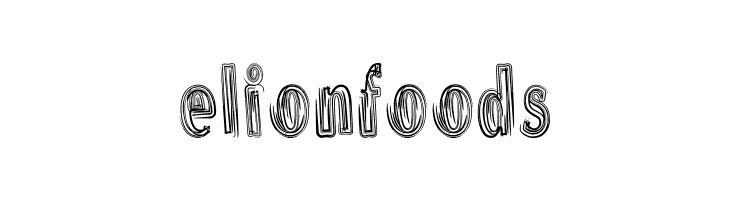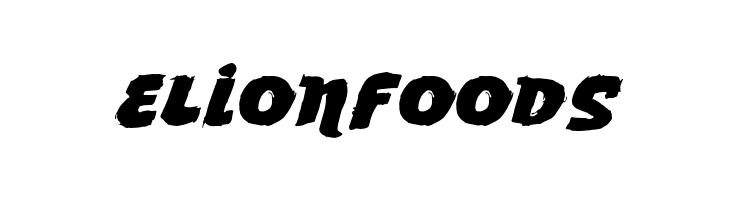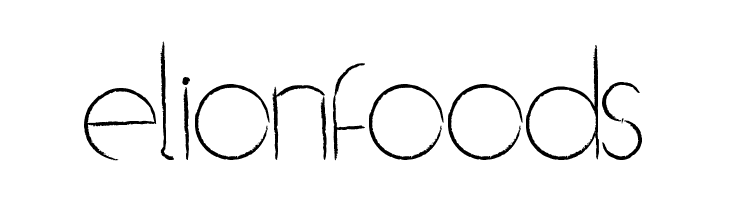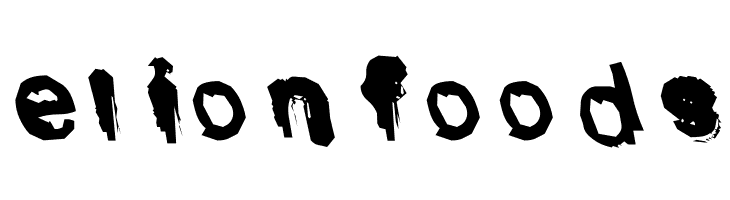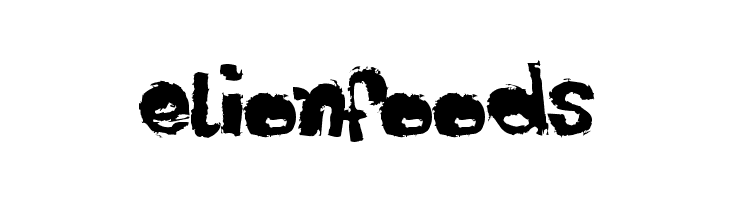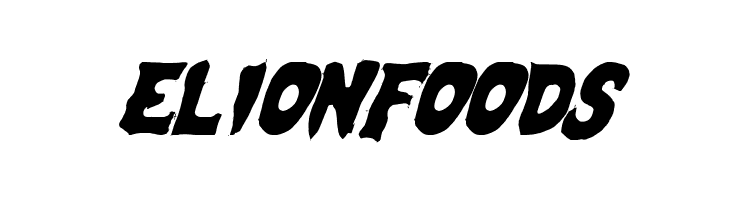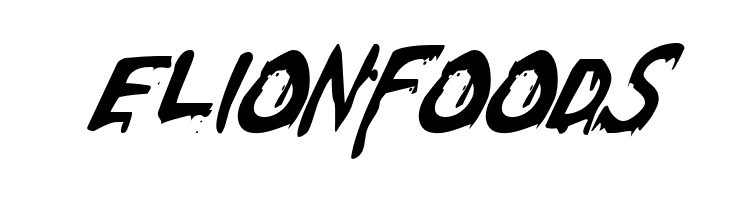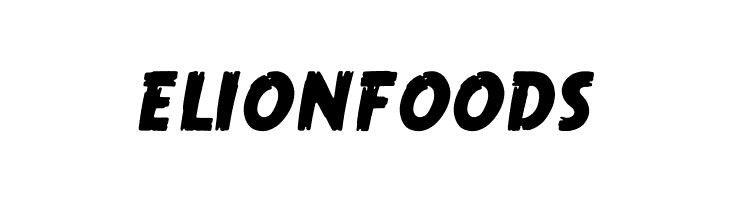
• DS Brushes Normal
• vtks Lemon Drop
A bold, brush-style font with dynamic and expressive characters.
• [[[o]]] brushhh
A hand-drawn, brush-style font with tall, slender characters and an artistic flair.
• ABUSO
A bold, grungy font with a distressed, brush-painted appearance.
• Shodo
• !the troubles
An abstract, hand-drawn font with irregular, brush-like letterforms enclosed in circular shapes.
• Dippex
• Mystic Singler Light Italic
A bold, brush-style font with dynamic and energetic strokes.
• Were-Beast Italic
A bold, italic font with a wild, brush-like appearance.
• True Crimes
A bold, brush-style font with dynamic, slanted strokes.